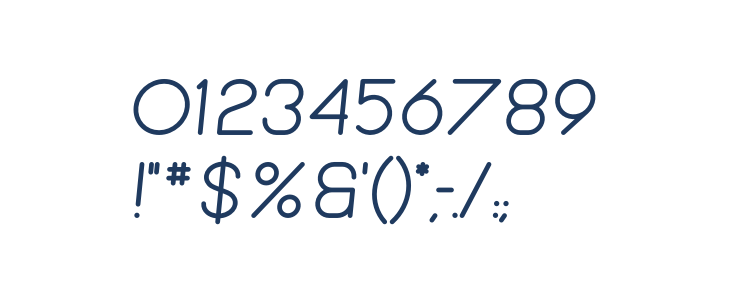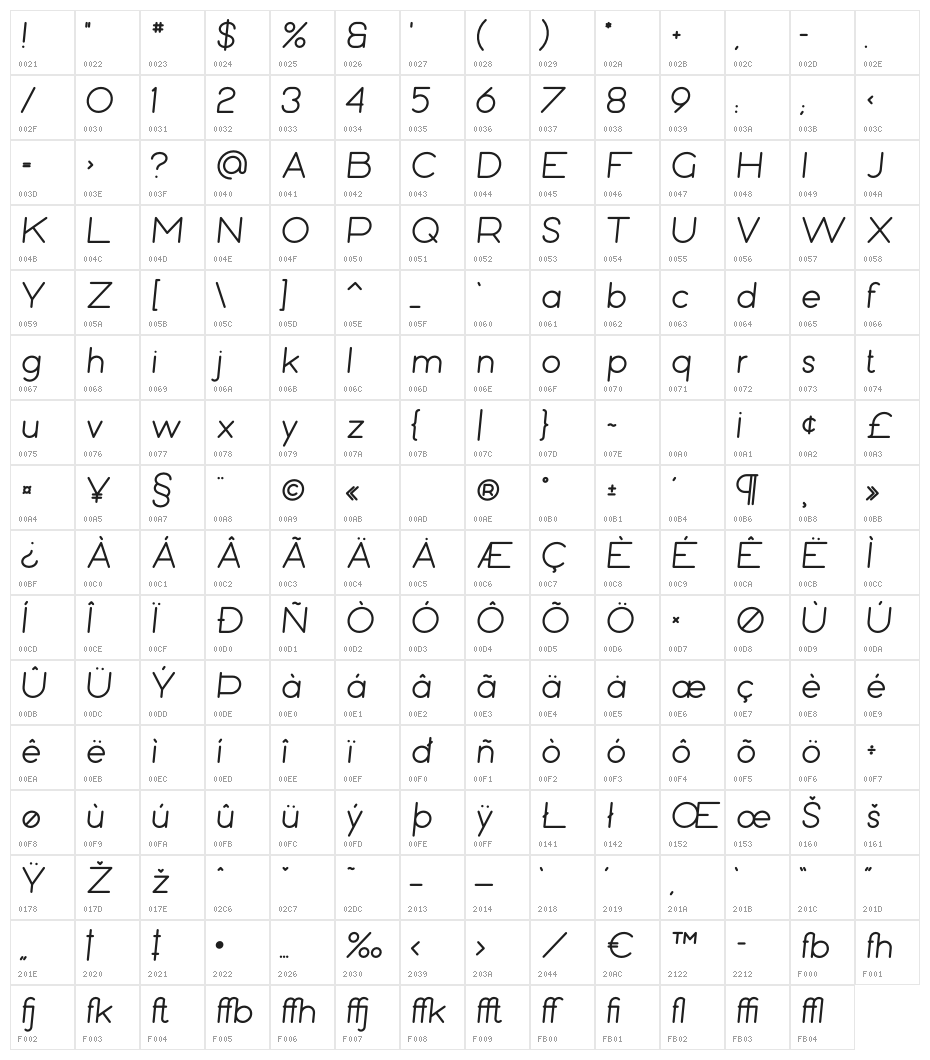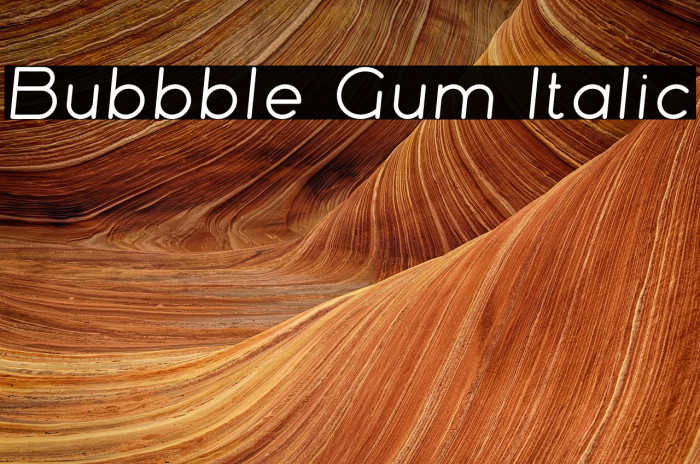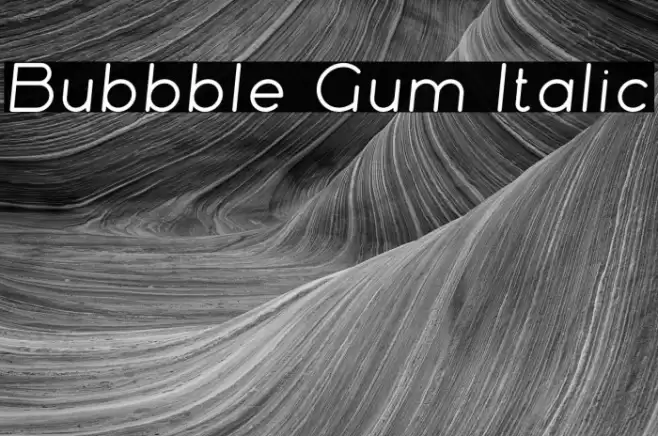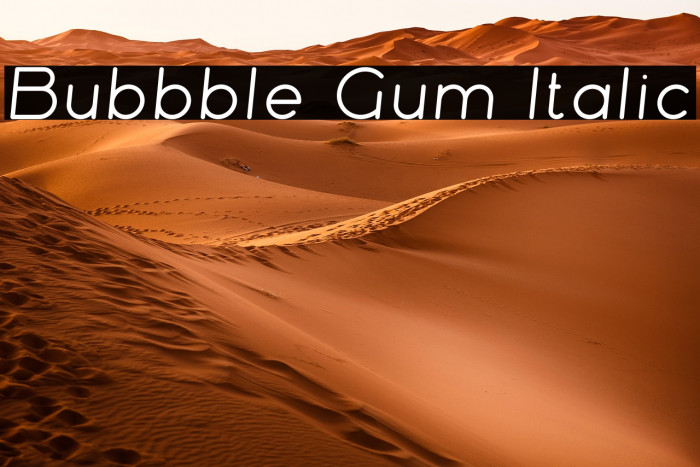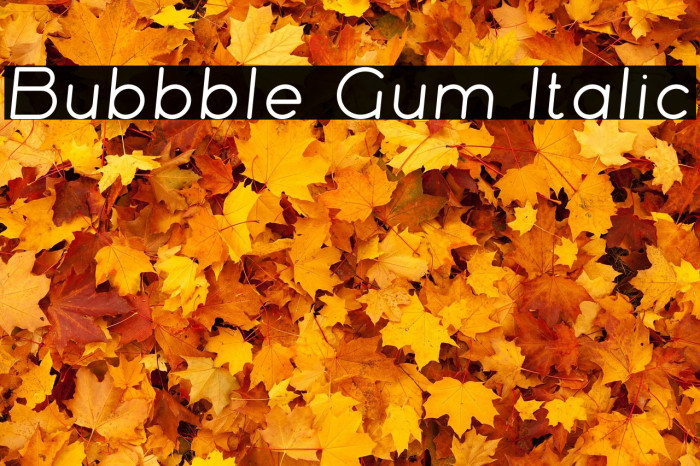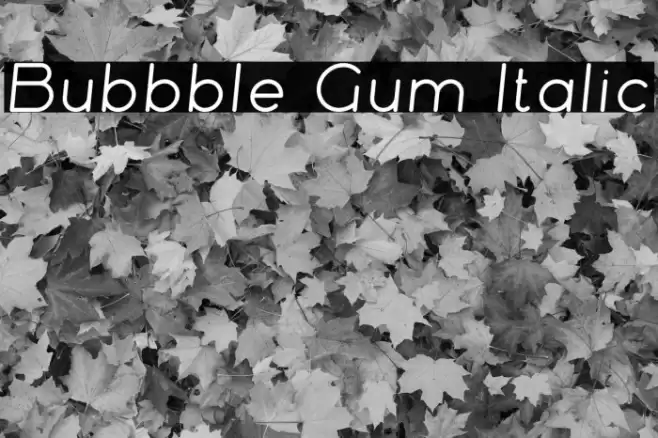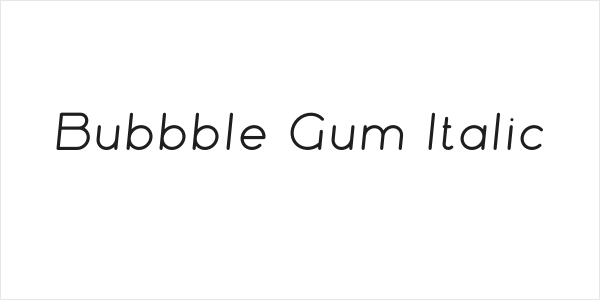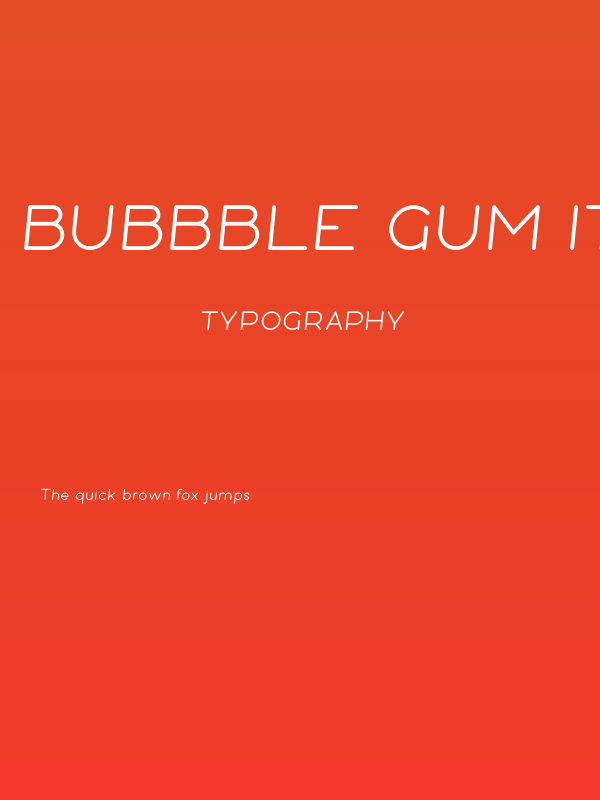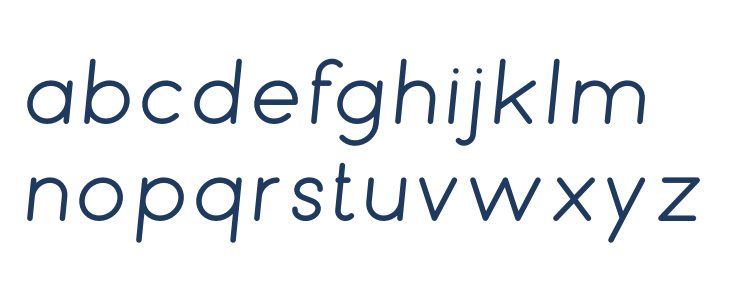
Bubbble Gum Italic Font
Bubbble Gum Italic Description
This font features a playful and rounded style with a slight italic slant, giving it a dynamic and friendly appearance. The characters are smooth and consistent, with a uniform stroke width that maintains readability while adding a touch of whimsy. The uppercase and lowercase letters are well-balanced, and the numerals are clear and distinct. Special characters are included, enhancing its versatility for various design needs. Its overall look is modern yet approachable, making it suitable for a wide range of creative projects.
| Use Case | Headlines, Logos, Casual Text |
| Proposed Projects | Ideal for children's books, playful branding, casual invitations, and creative advertising. |